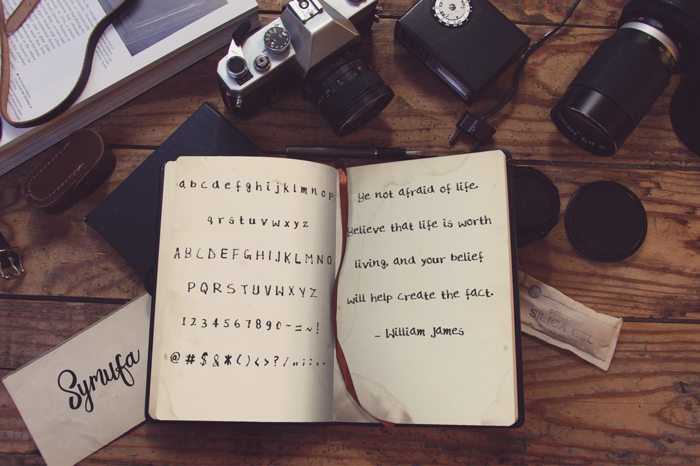
Rough Dusty Chalk Font
Rough Dusty Chalk is a nice decorative typeface. Designed with love and care. Useful for various design project. Specialized for logos, headlines.